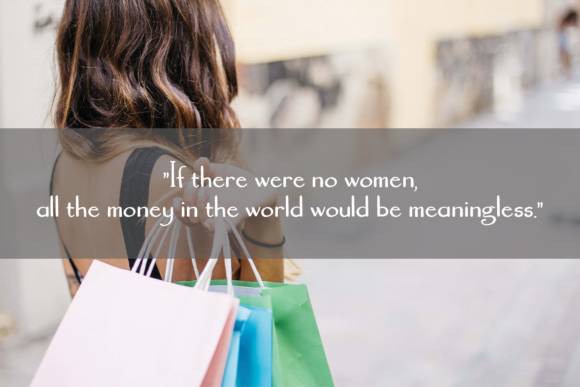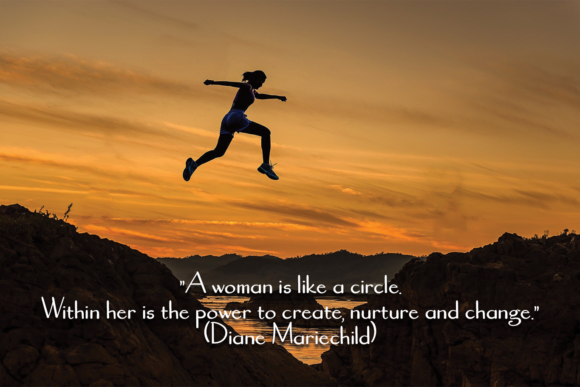
Woman Quotes Font
db-ku.com - Script & Handwritten -- Woman Quotes is a cool, friendly, and informal handwritten font. It can be used for all chalkboard quotes or teaching material, and it works perfectly fine with children’s projects and colorful backgrounds.